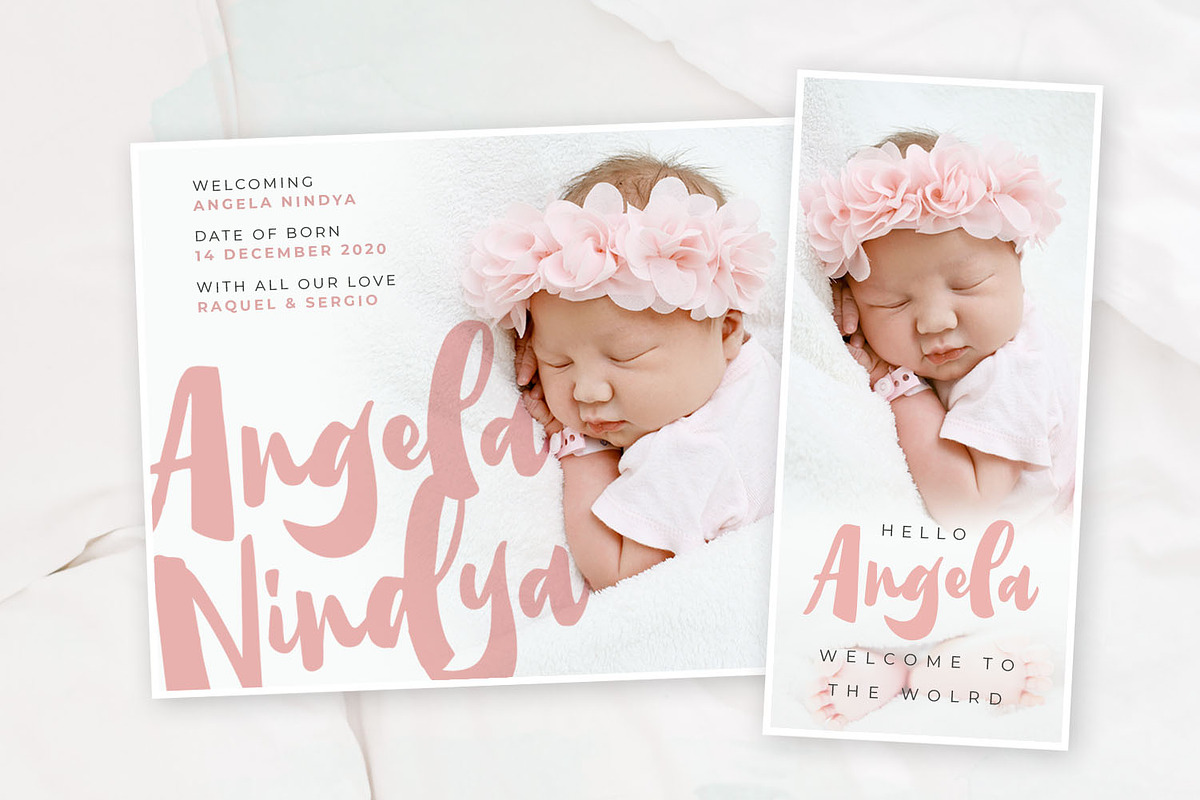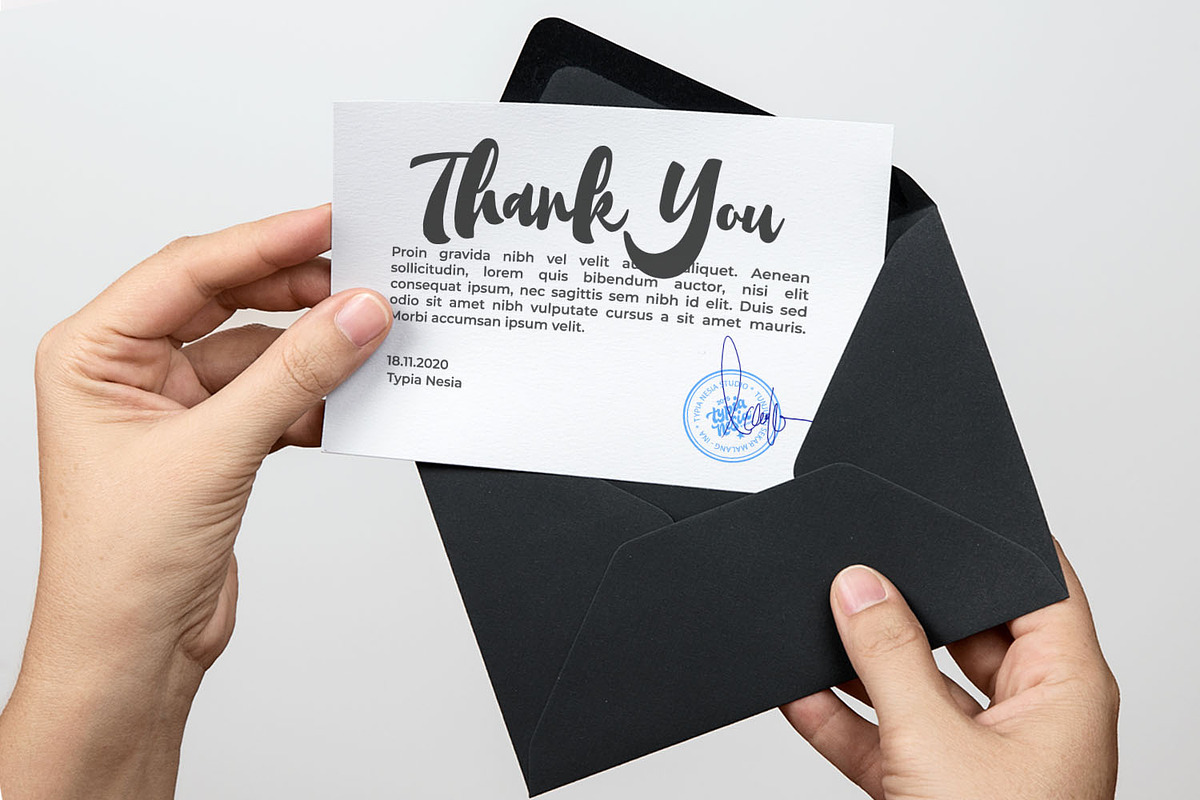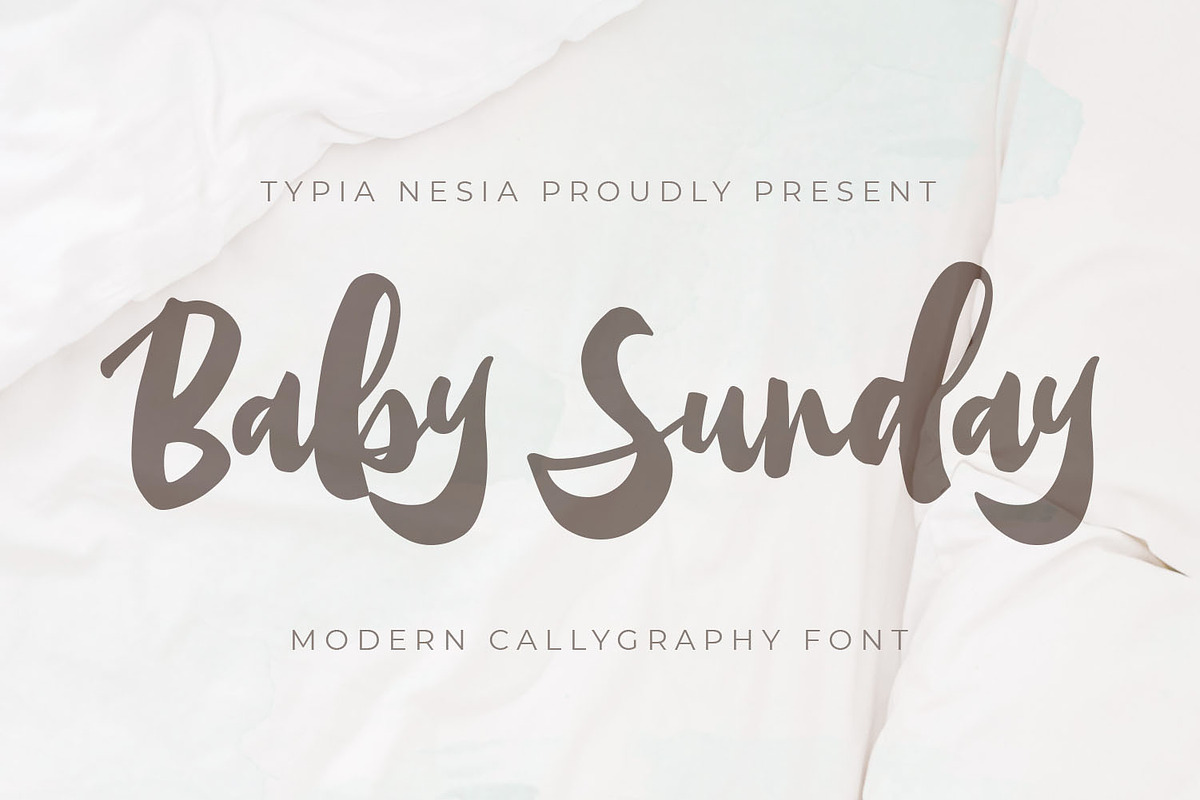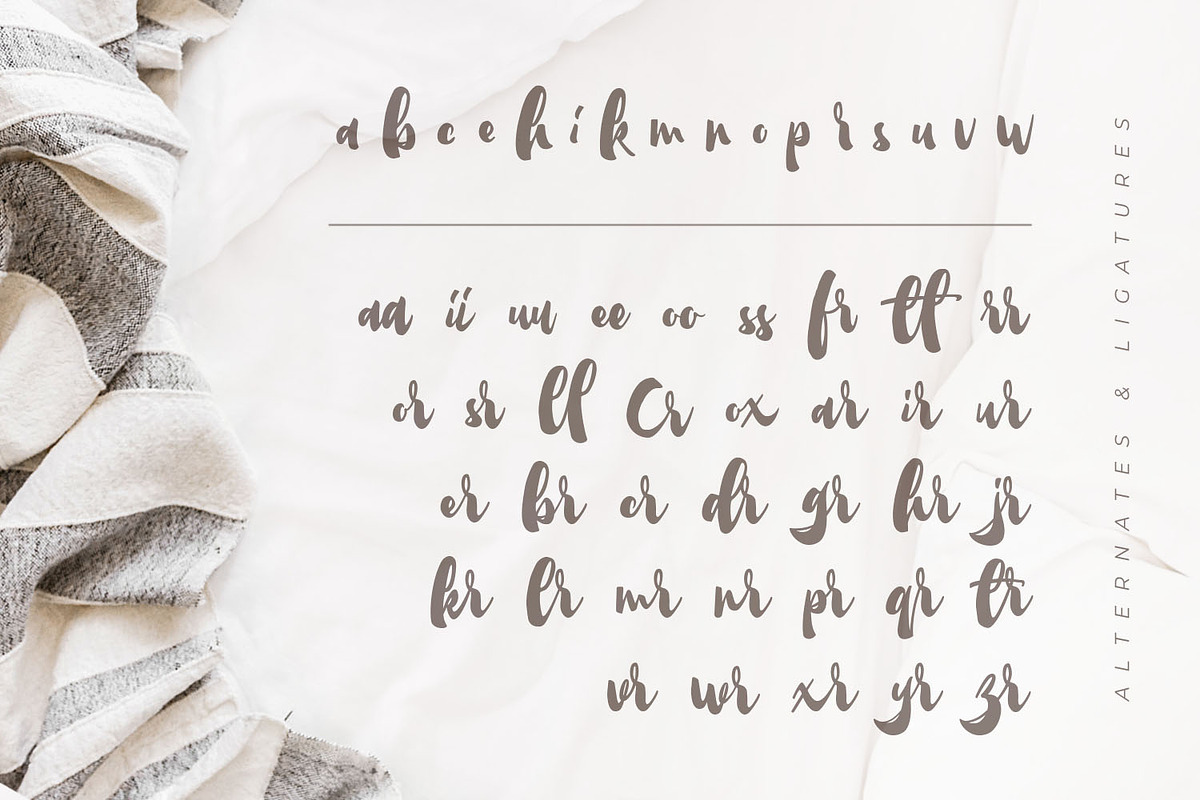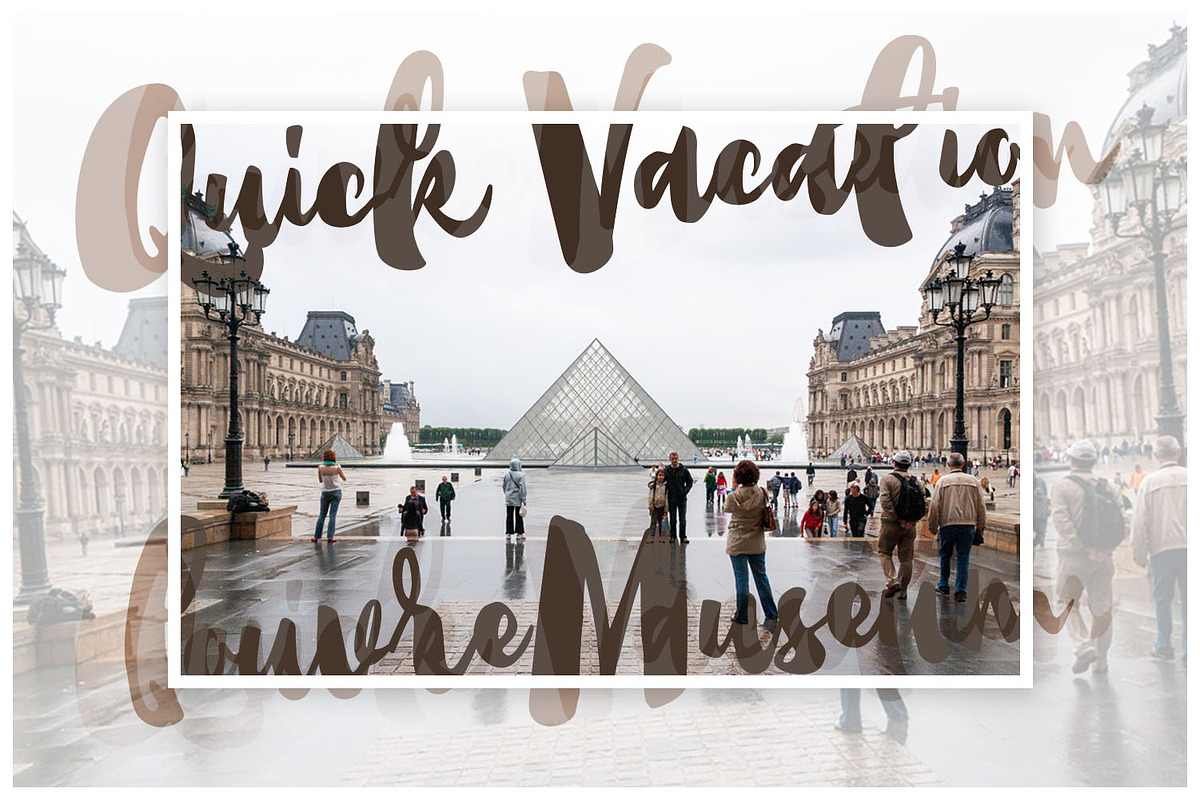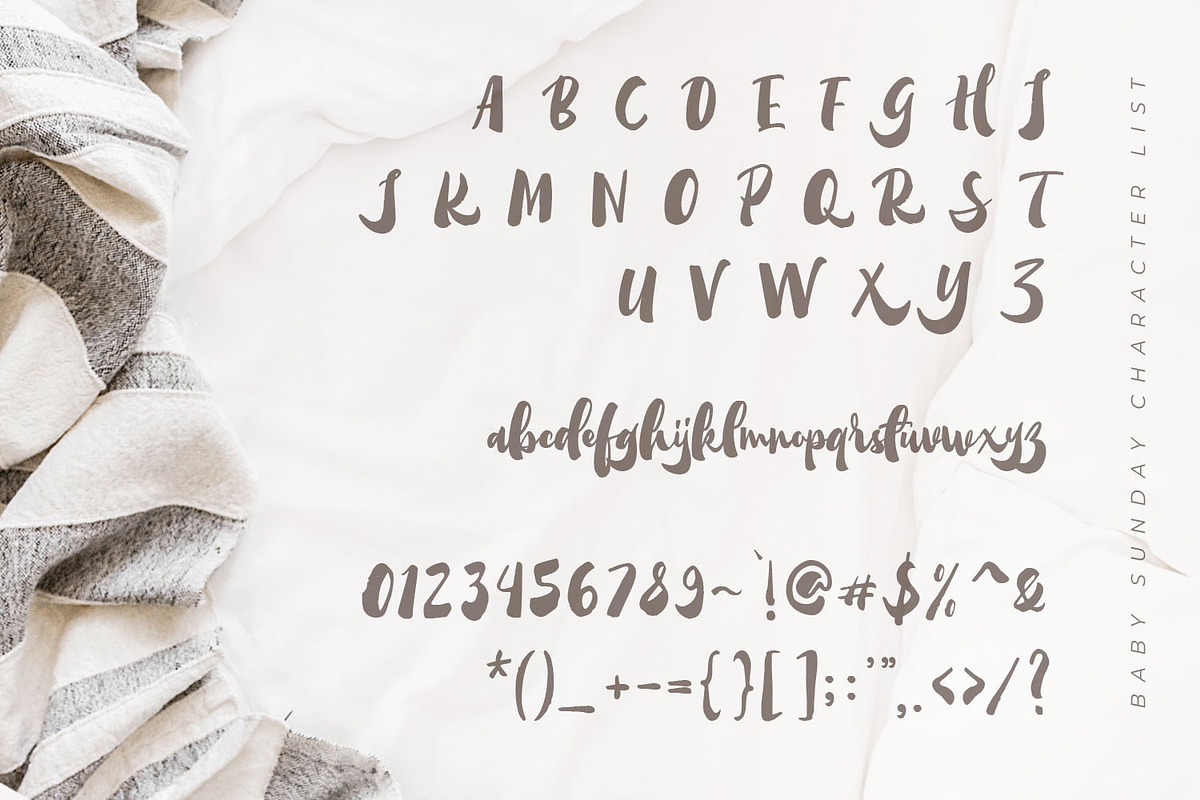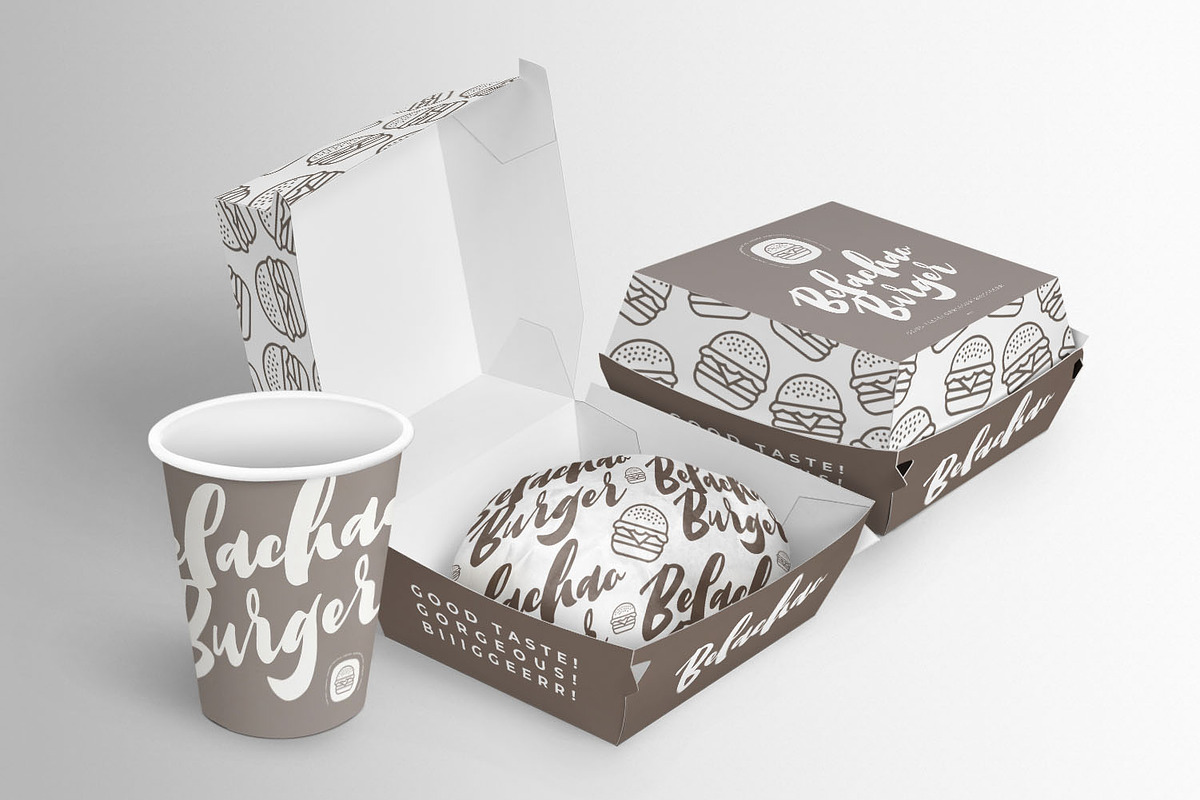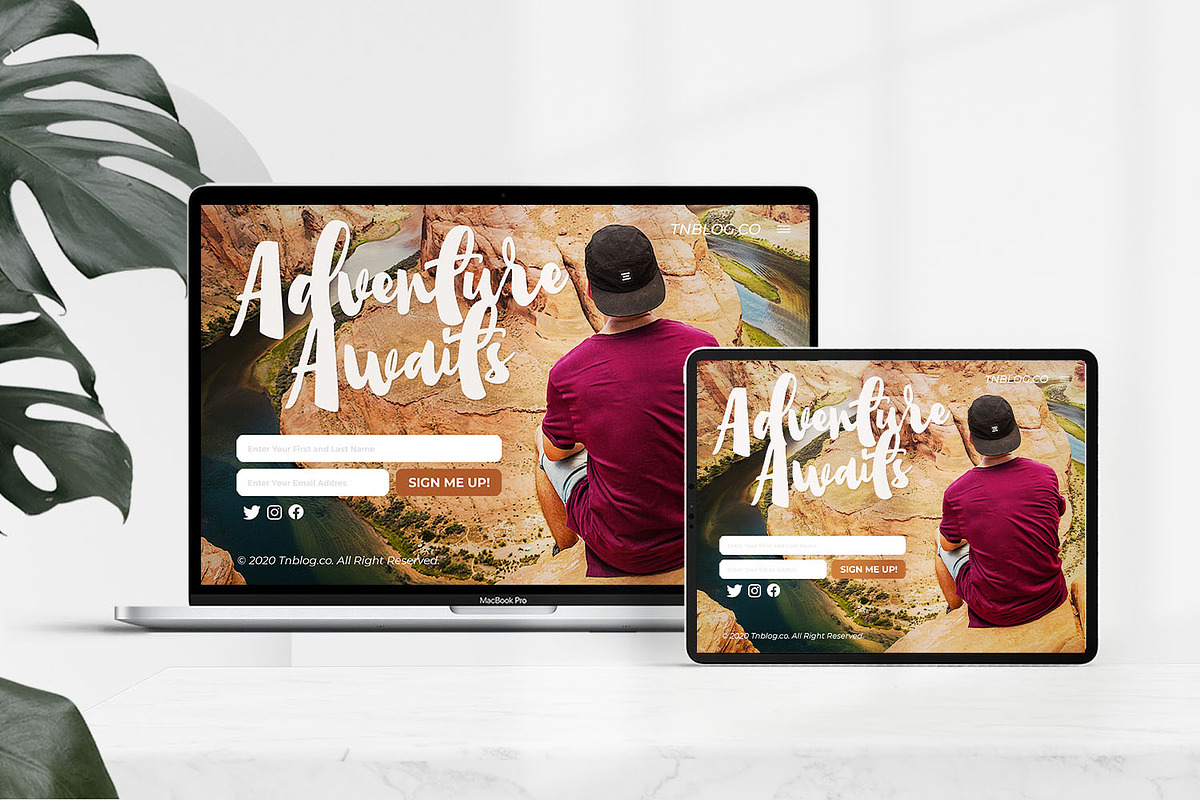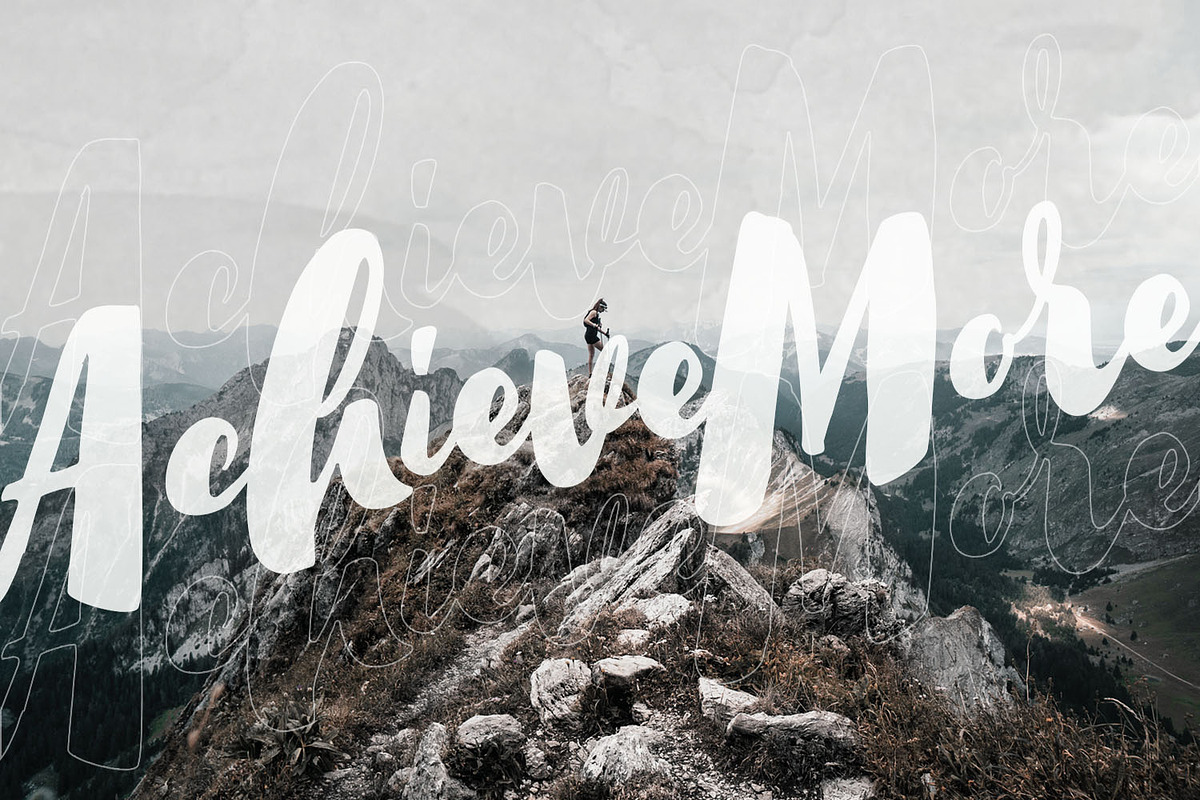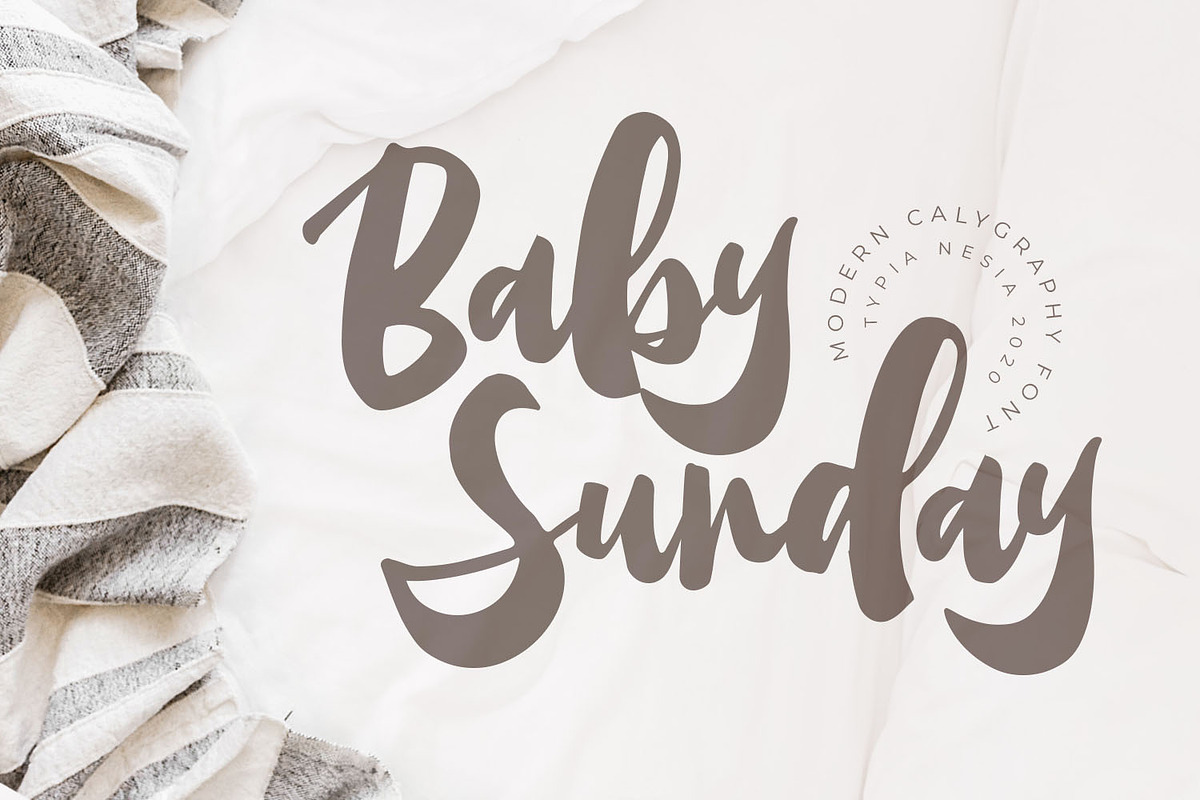
Baby Sunday
Baby Sunday - Calligraphy Font - Newborn Baby Shower Font. It comes with ligatures and alternates. You can combine it to make a perfect beautiful calligraphy design.
Baby Sunday is Calligraphy Script Font with ligatures and alternates. The unique flow and easy calligraphy style makes it perfect for wedding design, blogging, social media, branding, invitation, gretting cards or simply use it in your next design project.